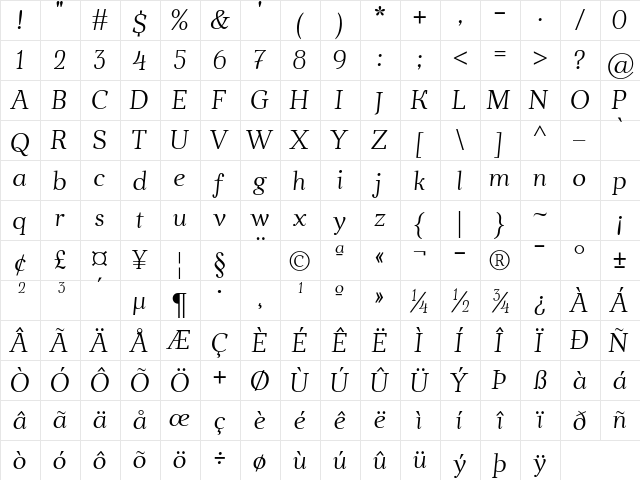
a3 Italic Font Preview
a3 Italic
a3 Italic Font Details
Design Context for a3 Typeface
a3 offers clean, dependable letterforms without strong stylistic allegiance, making it a practical choice for designers who need flexibility. The dynamic lean of this cut emphasises speed and emphasis in any layout.
Pro Tip: Try a3 for annotation and caption copy alongside an upright companion — the contrast in angle creates a dynamic but ordered typographic system.